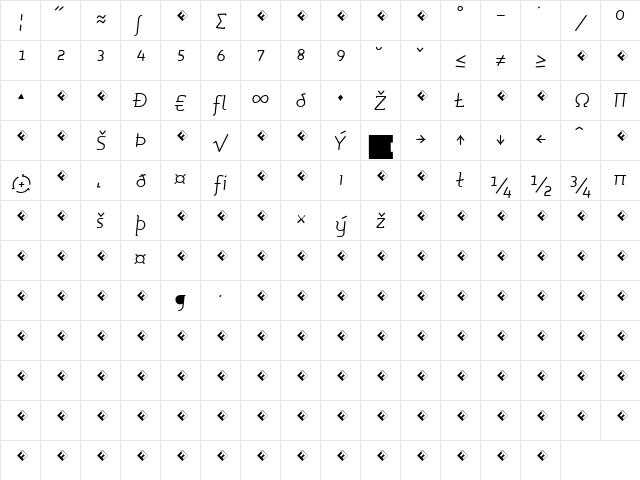
Roice-LightItalicExpert Italic Font Preview
Design Context for Roice-LightItalicExpert Typeface
Roice-LightItalicExpert offers clean, dependable letterforms without strong stylistic allegiance, making it a practical choice for designers who need flexibility. The slanted form adds forward momentum and visual energy. Its slender proportions lend an understated elegance to any composition.
Pro Tip: Try Roice-LightItalicExpert for annotation and caption copy alongside an upright companion — the contrast in angle creates a dynamic but ordered typographic system.